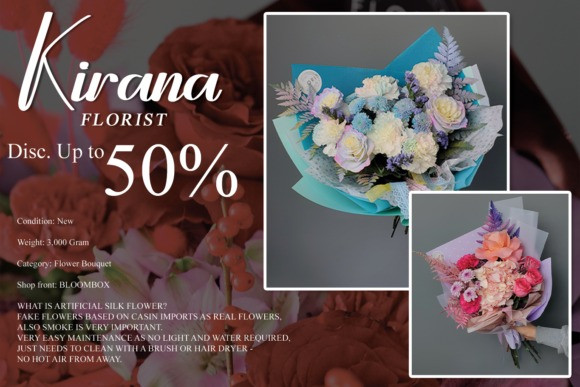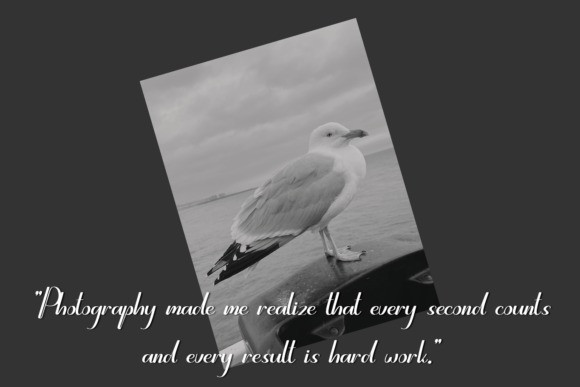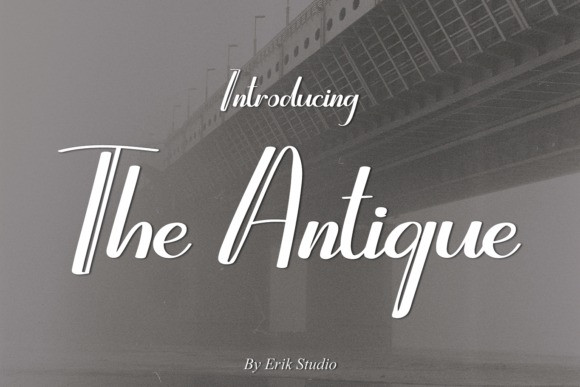
The Antique Font
The Antique Font is an exquisite handwritten font, masterfully designed to become a true favorite. It maintains its classy calligraphic influences while feeling contemporary and fresh. Fall in love with it and bring your projects to the highest levels!